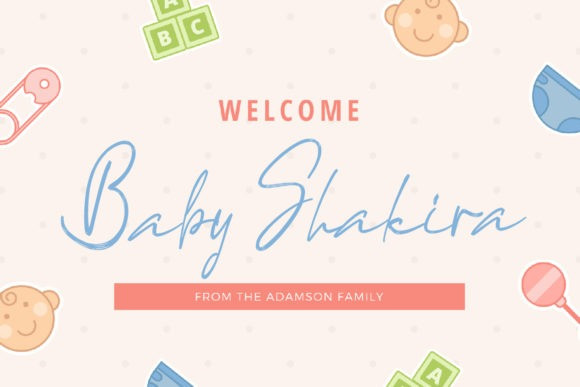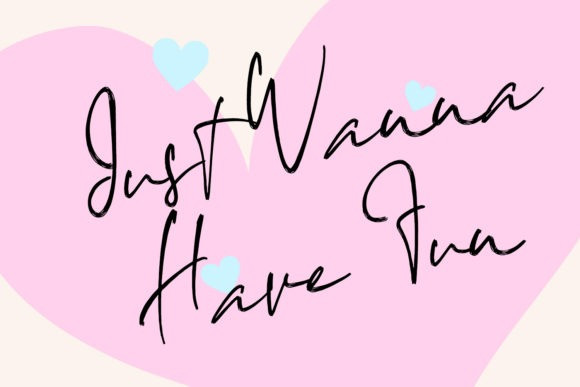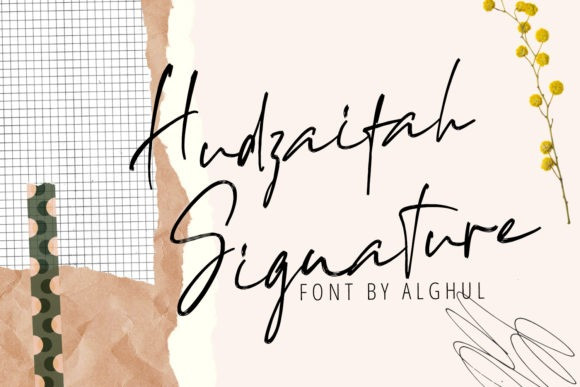
Hudzaifah Signature Script Font
Hudzaifah is a delicate and elegant handwritten font. Its distinct and well rounded letters make this font a masterpiece. Fall in love with its incredibly versatile style and use it to create spectacular designs!